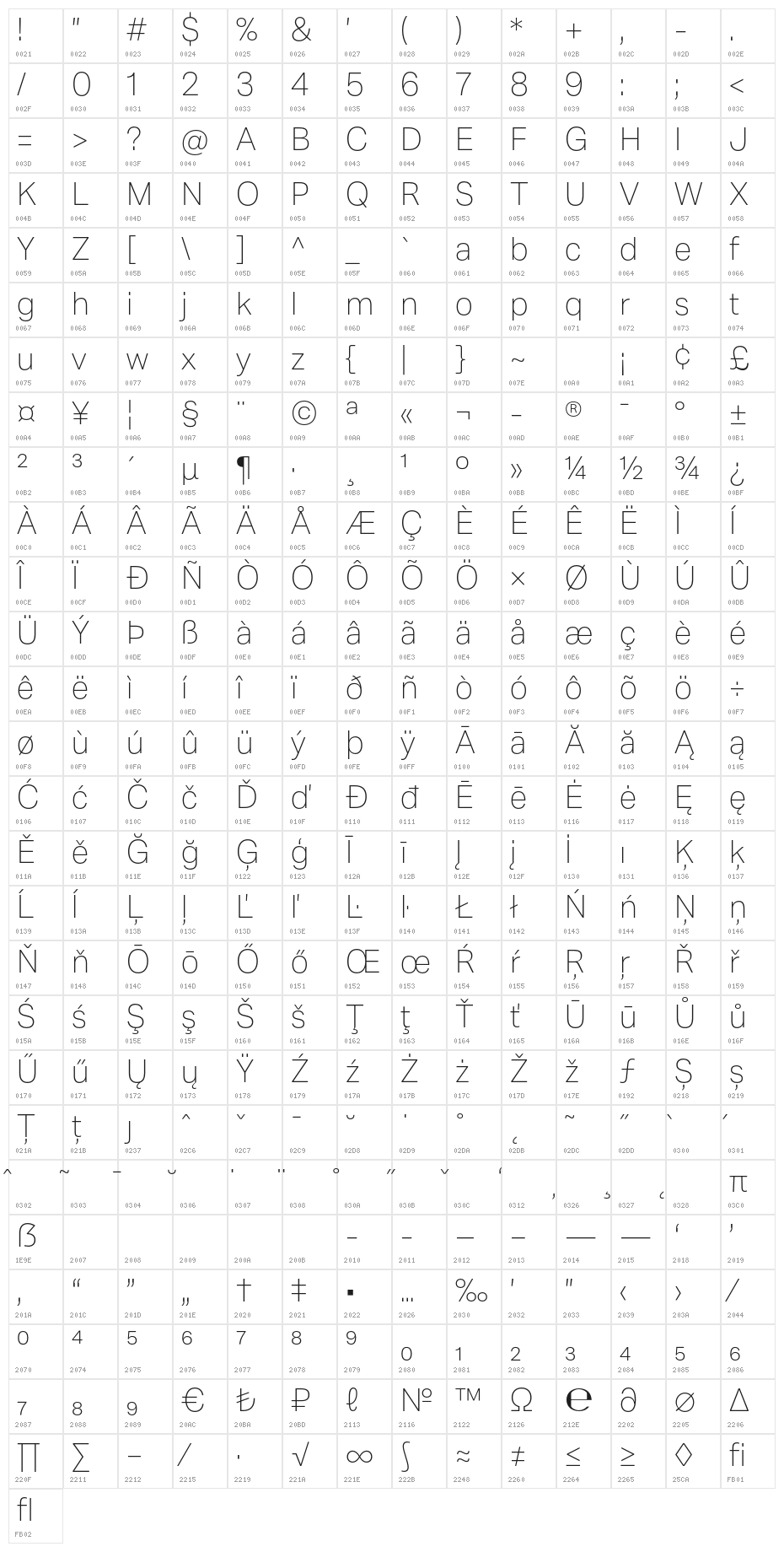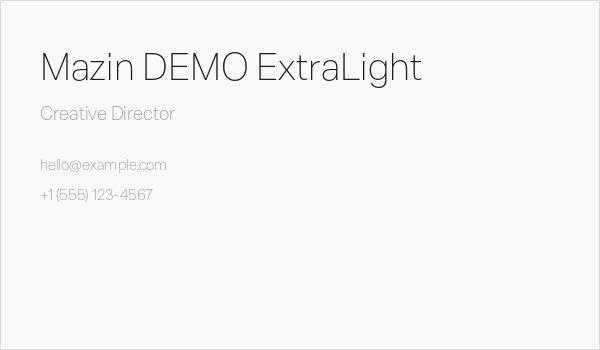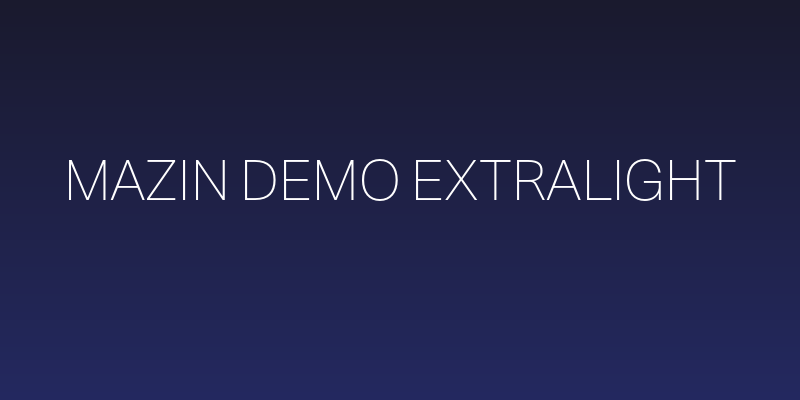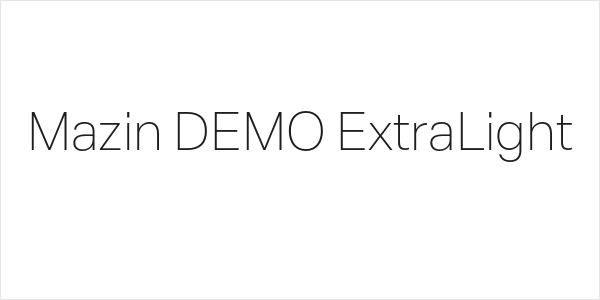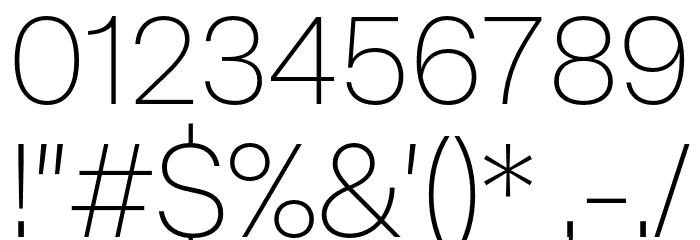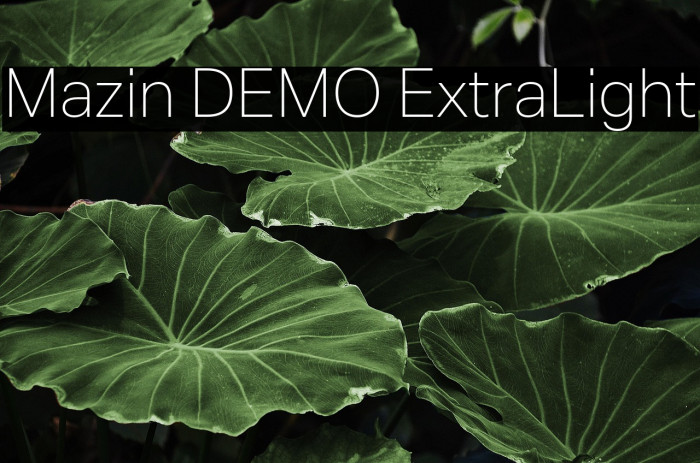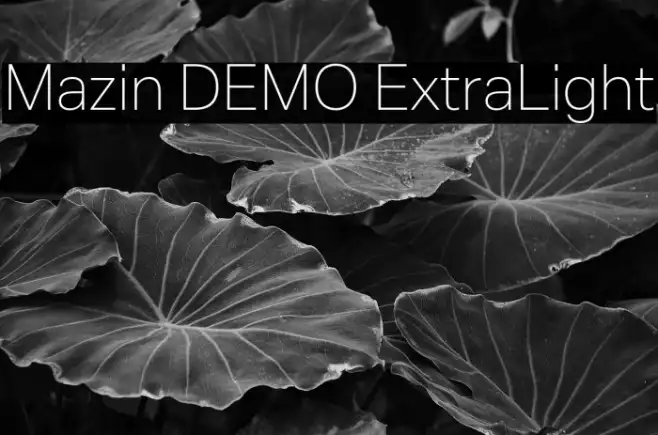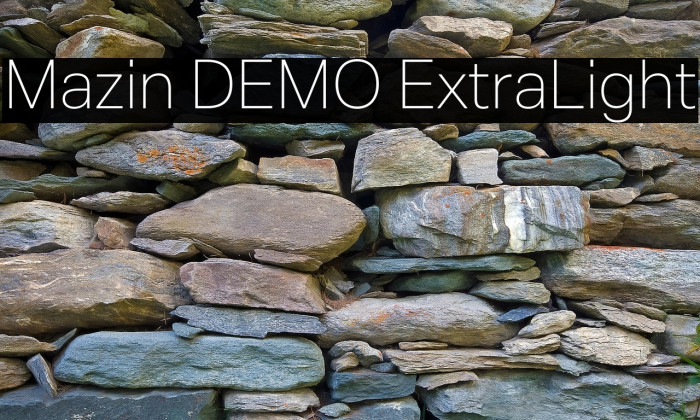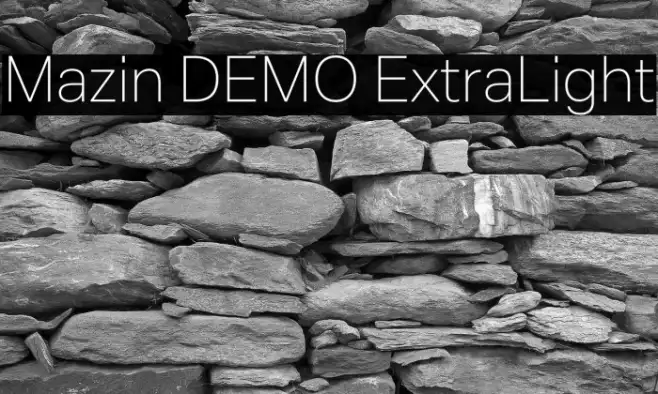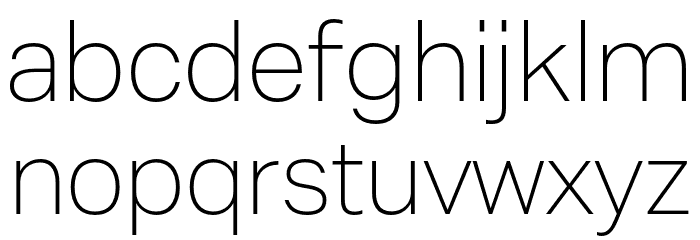
Mazin DEMO ExtraLight Font
Mazin DEMO ExtraLight Description
This font features a clean and modern design with a geometric structure. The characters are evenly spaced with a consistent stroke width, giving it a sleek and minimalistic appearance. The uppercase and lowercase letters are well-proportioned, and the numerals are clear and legible. Special characters are included, maintaining the font's uniform style. Its simplicity and elegance make it versatile for various design applications.
| Proposed Projects | Ideal for branding, editorial design, websites, and user interfaces where clarity and modernity are essential. |